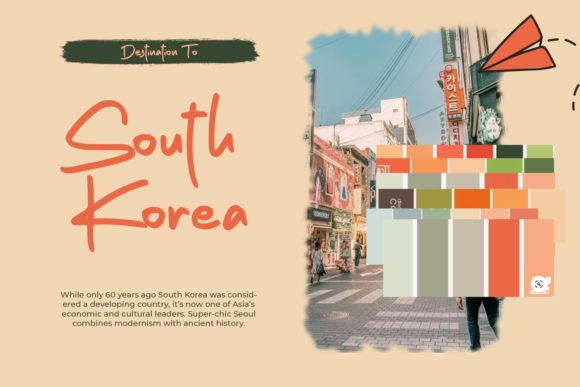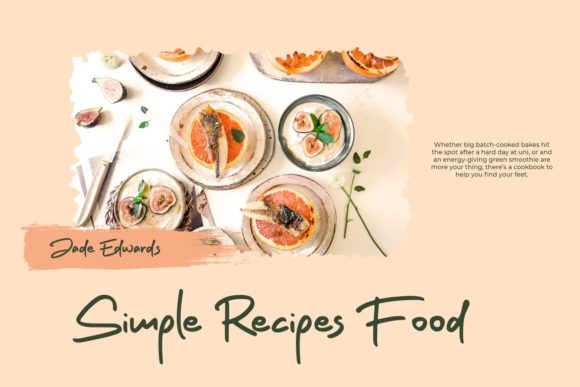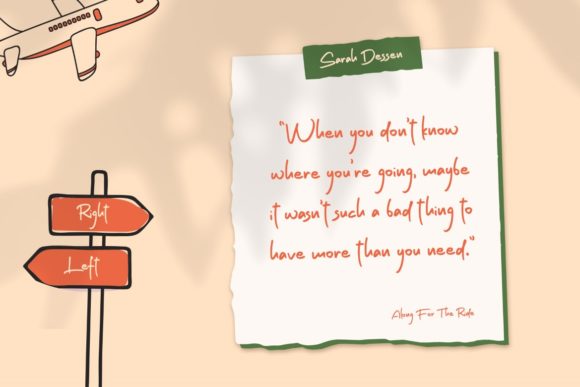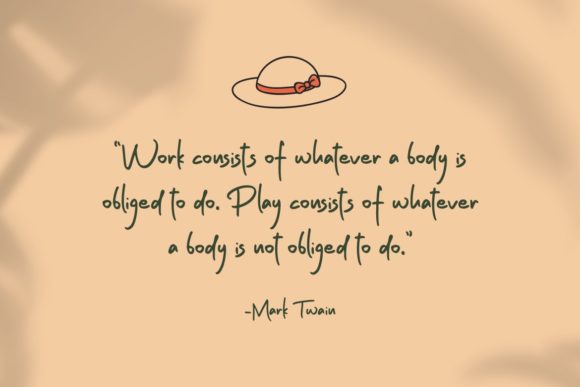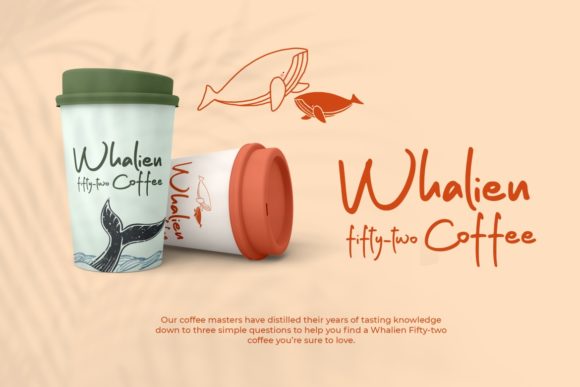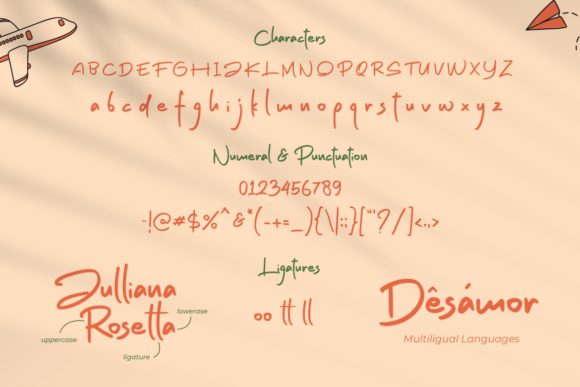
Introducing Guestour Font: The Ultimate Handwritten Script for Romantic Designs
Are you a designer or crafter looking for a font that can add a touch of romance and sweetness to your projects? Look no further than Guestour Font! This beautiful handwritten script font is perfect for creating stunning designs that exude warmth and elegance. In this article, we’ll dive into the world of Guestour Font and explore its features, applications, and benefits.
A Cute and Sweet Handwritten Font
Guestour Font is a delightful handwritten script font that is sure to capture the hearts of designers and crafters alike. Its cute and sweet aesthetic makes it perfect for a wide range of projects, from greeting cards and invitations to headlines and branding materials. The font’s gentle curves and flowing lines create a sense of movement and fluidity, adding a touch of whimsy and playfulness to any design.
Versatile and Adaptable
One of the standout features of Guestour Font is its versatility. This script font can be used in a variety of contexts, from formal to informal, and is suitable for a range of design applications. Whether you’re creating a romantic wedding invitation, a festive holiday card, or a bold headline, Guestour Font is guaranteed to add a touch of elegance and sophistication.
Ranging from Greeting Cards to Headlines
Guestour Font is a font that can do it all! Its flexibility makes it perfect for use in:
- Greeting cards: Create beautiful and heartfelt greeting cards for special occasions like birthdays, weddings, and holidays.
- Headlines: Add a touch of glamour and sophistication to your headlines with Guestour Font’s elegant script.
- Invitations: Design stunning invitations for parties, weddings, and other special events.
- Branding: Use Guestour Font to create a unique and memorable brand identity.
Adding a Romantic Feel to Your Designs
Guestour Font is designed to add a romantic feel to your designs. Its delicate lines and curves evoke a sense of nostalgia and whimsy, making it perfect for creating designs that are both feminine and elegant. Whether you’re designing for a wedding, a anniversary, or just because, Guestour Font is sure to bring a touch of romance to your project.